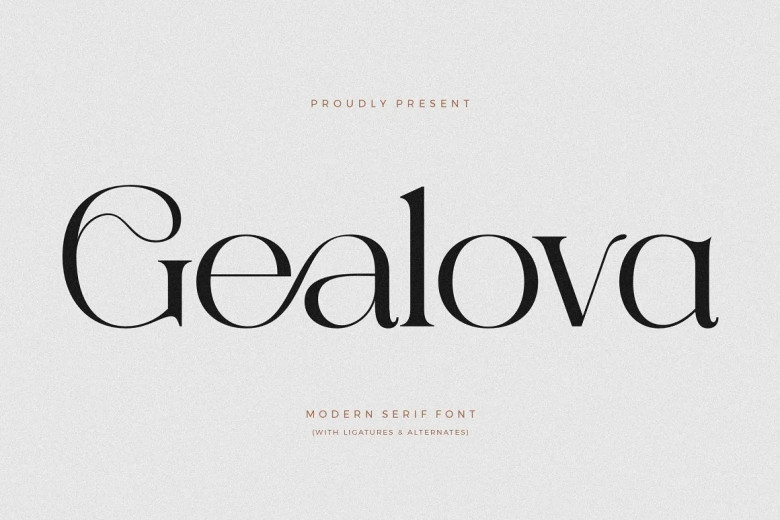
Gealova Font
Gealova can be described as an elegant and contemporary serif font with stylish modernity. With its soft serifs and graceful curves, Gealova makes an excellent addition to any design requiring class and sophistication.
Gealova Serif Font